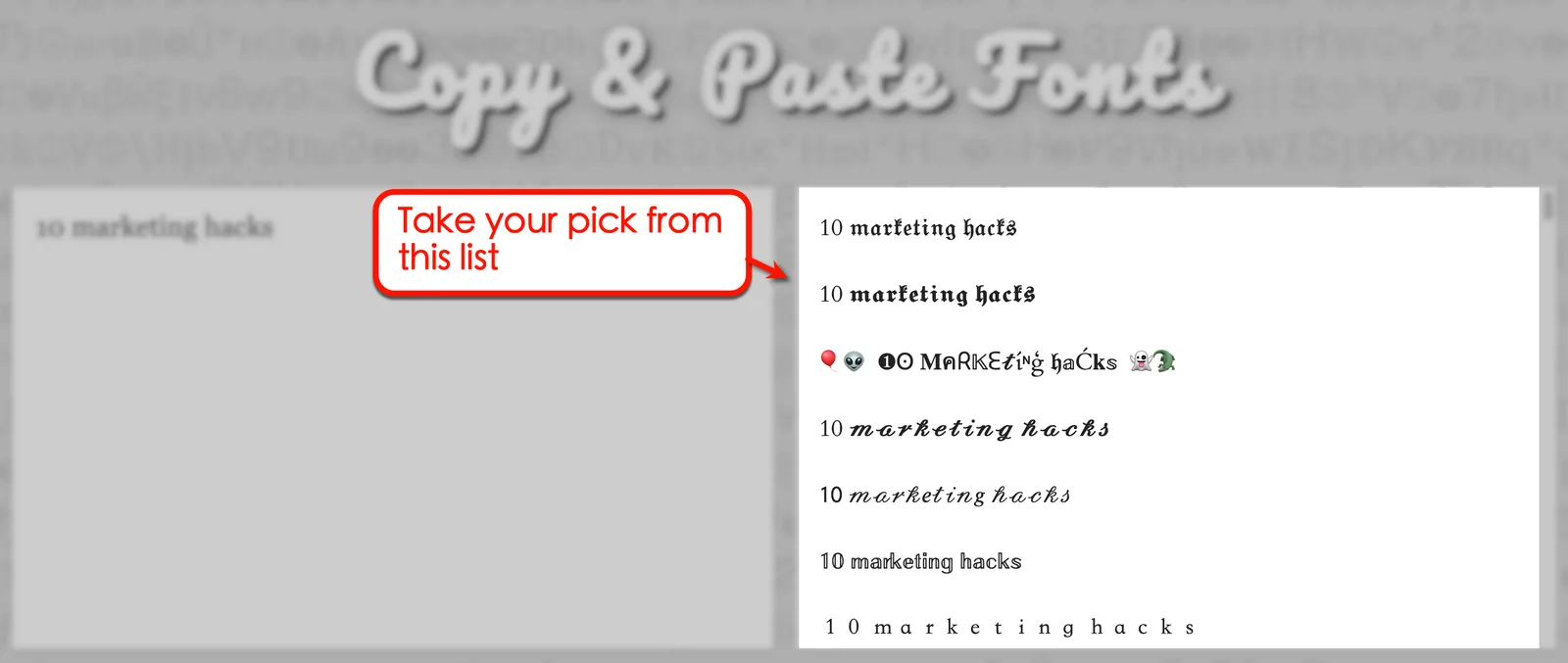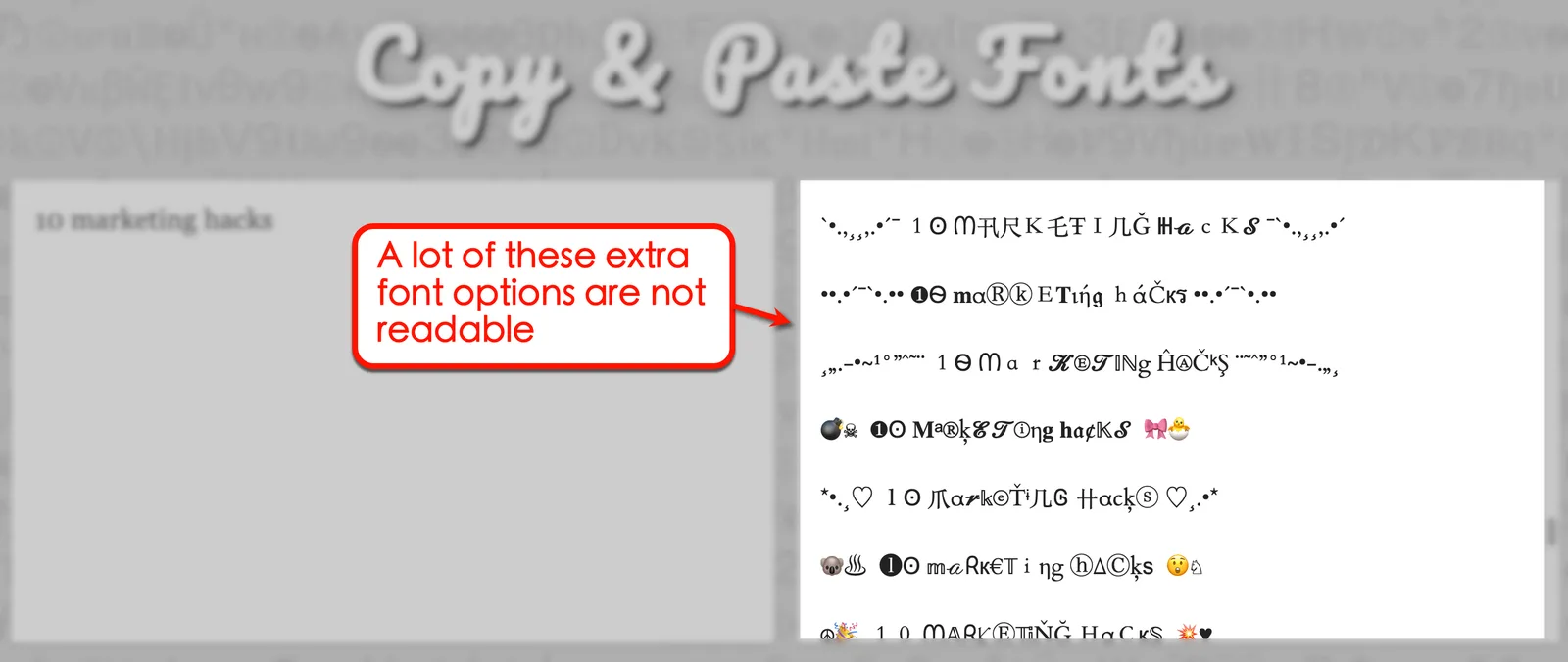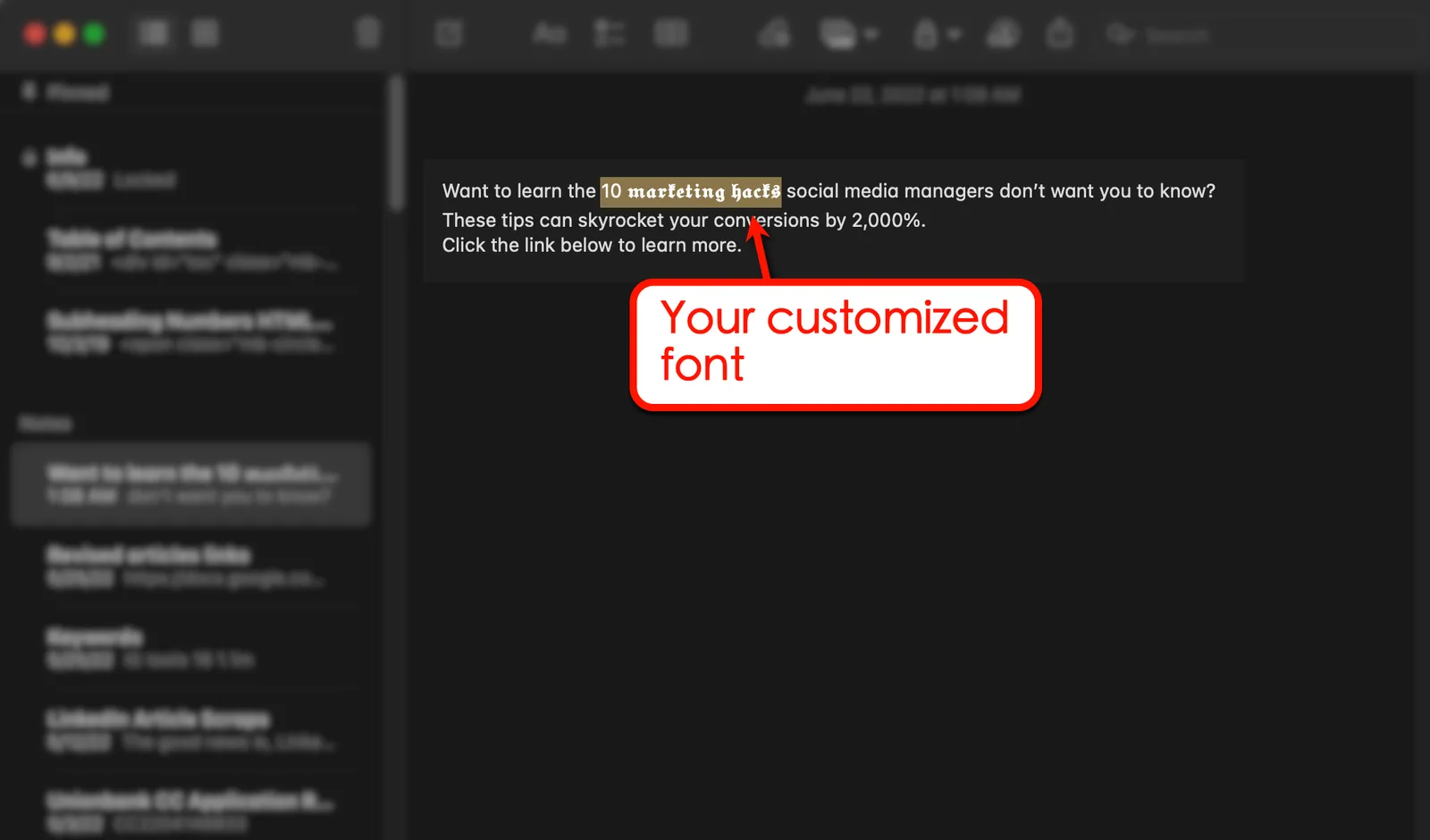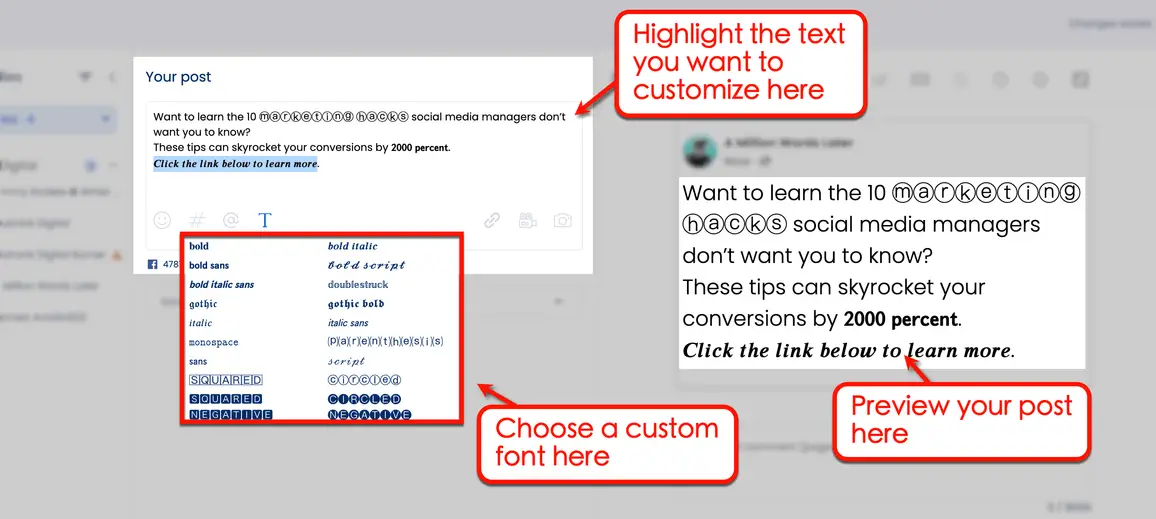
How to Change Your Social Media Font: Ultimate Guide
Use custom social media font to take your social media marketing strategies to the next level.
When used right, custom fonts make social media posts more visually appealing and impactful. This can help you turn more heads toward your client’s social media accounts.
Unfortunately, social media networks don’t have native features that allow anyone to use different fonts when creating posts.
LinkedIn is almost an exception with the basic formatting options it offers when posting articles. There are also IG tools and built-in features that allow you to use different fonts and special characters, but they’re only mostly for Instagram Stories.
When it comes to regular posts that appear on users’ feeds, you’re stuck with the default sans serif font that social media networks love.
That is if you don’t read this guide.
The manual method of changing your social media font
There are a few ways to use custom fonts for social media.
The first method—AKA the “manual” method—is to copy-paste your client’s social media content through a third-party tool.
It’s a long and boring process but it gets the job done.
It’s not ideal for marketing agencies since you handle multiple client accounts and publish truckloads of social media posts.
The second method is to create your posts through a social media management platform like Vista Social. It’s much more convenient, easy, and helps streamline your social media marketing campaigns. (More on that later.)
Here’s the manual way to get creative with typography in your client’s social media content:
Step 1: Write your client’s post caption
Before you think about using a decorative font with handwritten letters or anything eye-catching, create the copy first.
Creating the complete body text of your post lets you visualize which parts or words should be emphasized. Feel free to use your go-to spreadsheet or notetaking app for this step.
Screenshot of Notes app on MacOS
Step 2: Load up a font generator tool
With the content ready, the next step is to load the custom social media font generator tool you want to use.
A popular option would be Copy & Paste Fonts by LingoJam.
Copy the text you want to modify and paste it into the “Text goes here” field.
Screenshot of LingoJam paste preview
Below are a few alternatives to LingoJam’s Copy & Paste Fonts tool:
Step 3: Paste your text into the tool
Let’s say you only want to change the font of the phrase “10 marketing hacks.”
In your document, only highlight that phrase, use the copy command, and paste it into LingoJam’s tool. Don’t copy-paste everything unless you want the tool to use a different font family for the entire post.
Screenshot of a text preview
After pasting your text, LingoJam will automatically generate copies of it—but with different free fonts.
Pick from one of the options and copy it.
Screenshot of LingoJam format list
As you can see, tools like Copy & Paste Fonts offer a good range of options for social media posts. You’ll find serif fonts, open sans fonts, script fonts, and fonts infused with symbols or emojis.
The drawback is, most of these “extra” font options aren’t readable. And since they could end up confusing or frustrating users, they’re practically unusable in actual social media marketing campaigns.
Screenshot of LingoJam format options that are not readable
Image Source: LingoJam.com
Step 4: Paste the customized text back into your post
Finally, paste the modified text back into your draft.
This lets you preview what your post will look like and make adjustments where needed.
Screenshot of a customized font
What if you want to customize other parts of your post?
The answer is obvious: you just need to repeat steps 2 and 3. Do it for every bit of text you want to customize.
This should be simple enough for short-form posts with only a handful of paragraphs. But it’s too time-consuming for elaborate post captions or descriptions, especially if you consider revisions.